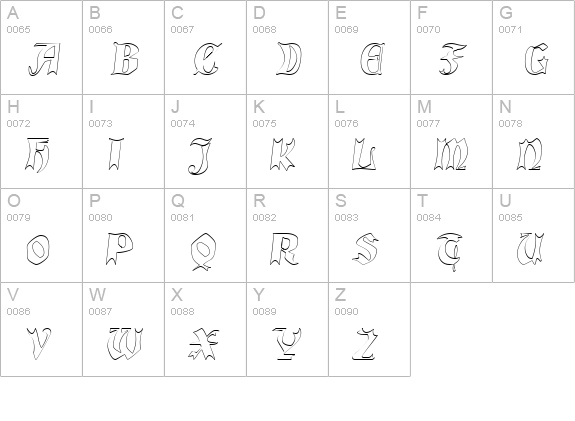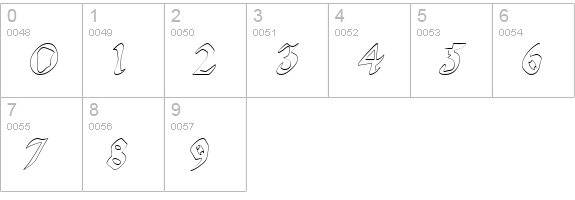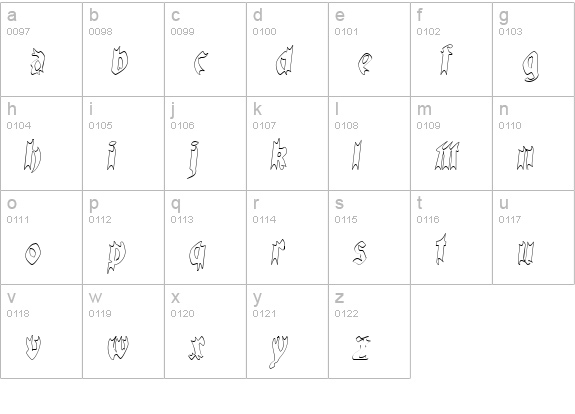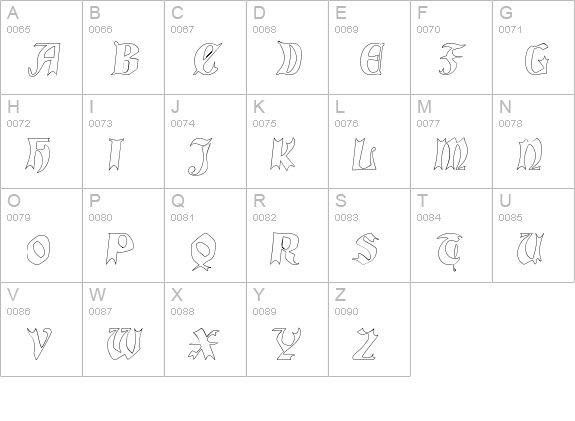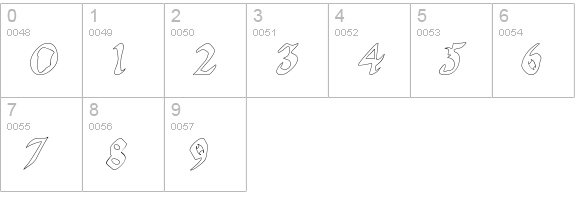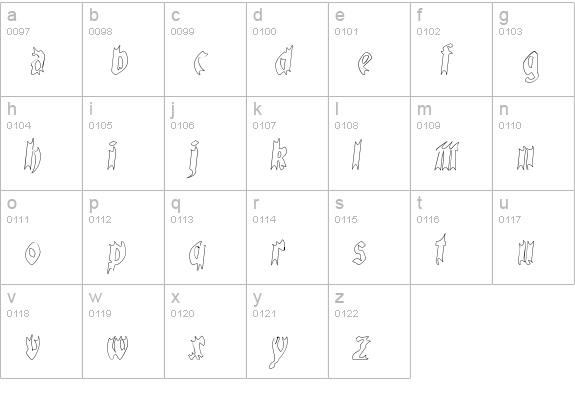
QuaelGothicHollow Font Details
QuaelGothicHollow font is a captivating and mesmerizing typeface that exudes an air of mystery and elegance. With its intricate and delicate design, this font is perfect for adding a touch of Gothic charm to any project. Each letter is meticulously crafted, featuring intricate details and unique flourishes that make it truly stand out. The QuaelGothicHollow font is versatile and can be used in a variety of design projects, from branding and logos to posters and invitations. Its bold and striking appearance is guaranteed to grab attention and leave a lasting impression. One of the best things about QuaelGothicHollow font is that it is completely free. Yes, you heard that right! This remarkable font is available for free download at FontsMarket.com. This means that you can easily get your hands on this stunning font and use it in your projects without any hassle or cost. Whether you are a professional designer looking to add a touch of Gothic elegance to your work or simply a font enthusiast searching for a unique and captivating typeface, QuaelGothicHollow font is the perfect choice. It combines beauty, versatility, and affordability, making it an irresistible option for anyone in need of a stunning font. So why wait? Head over to FontsMarket.com and download QuaelGothicHollow font today!